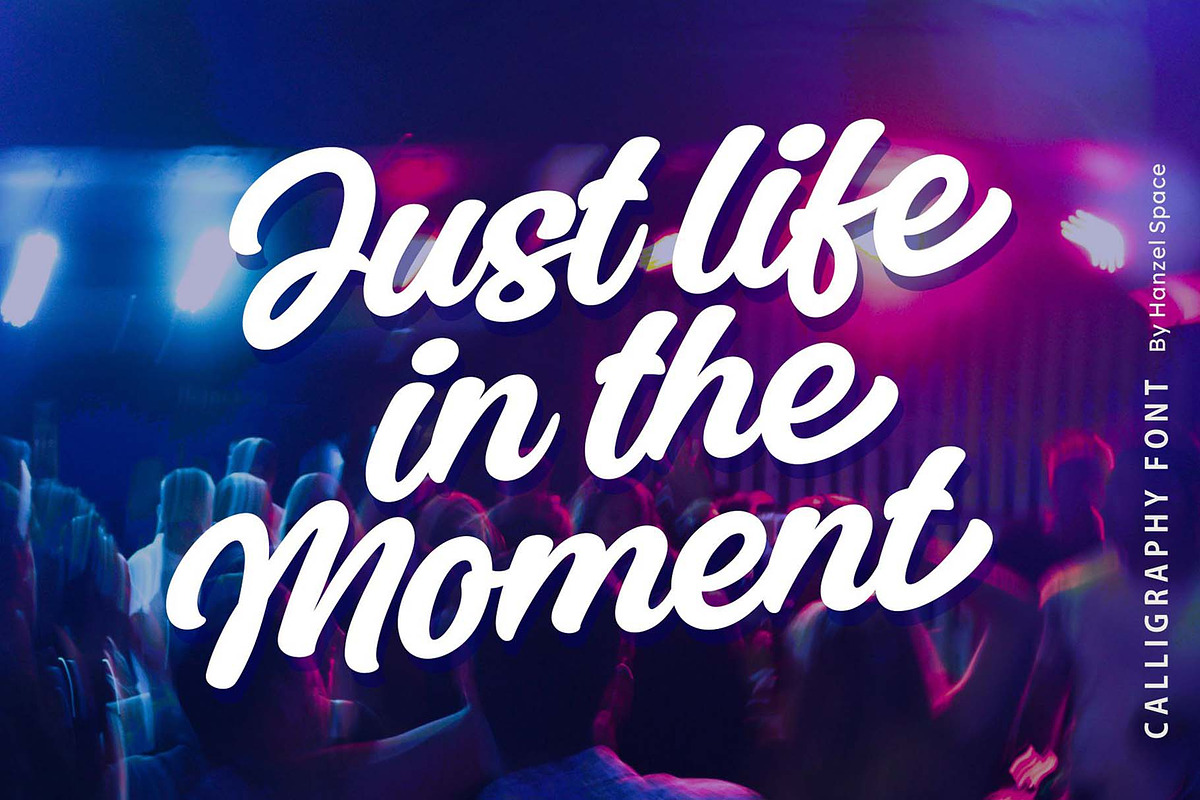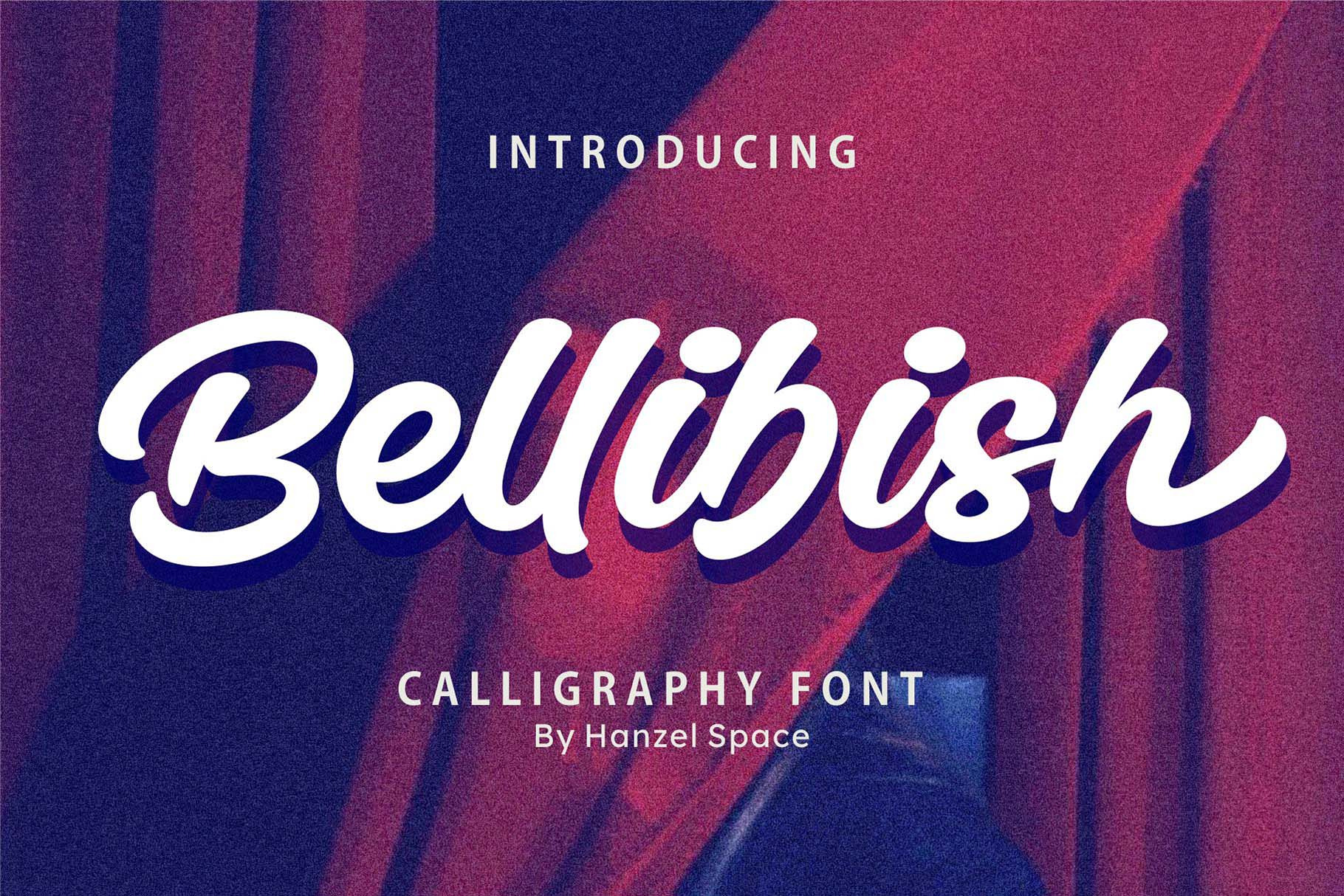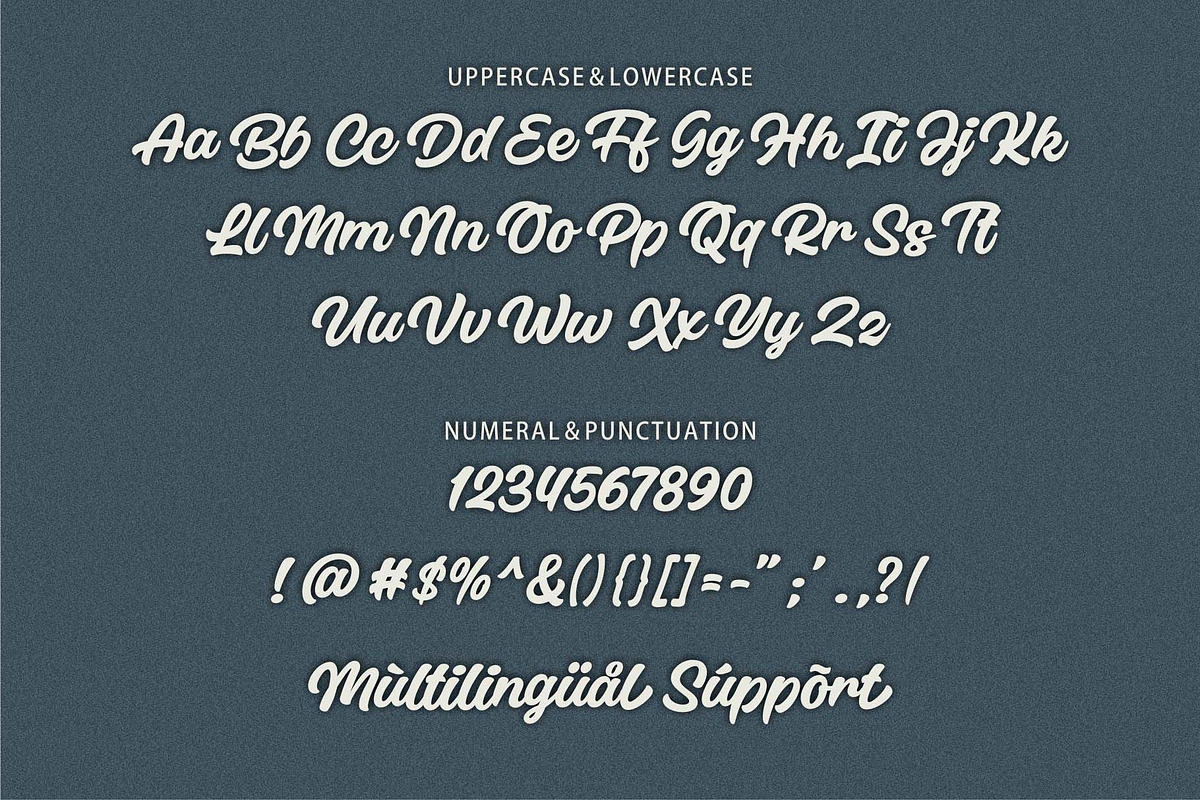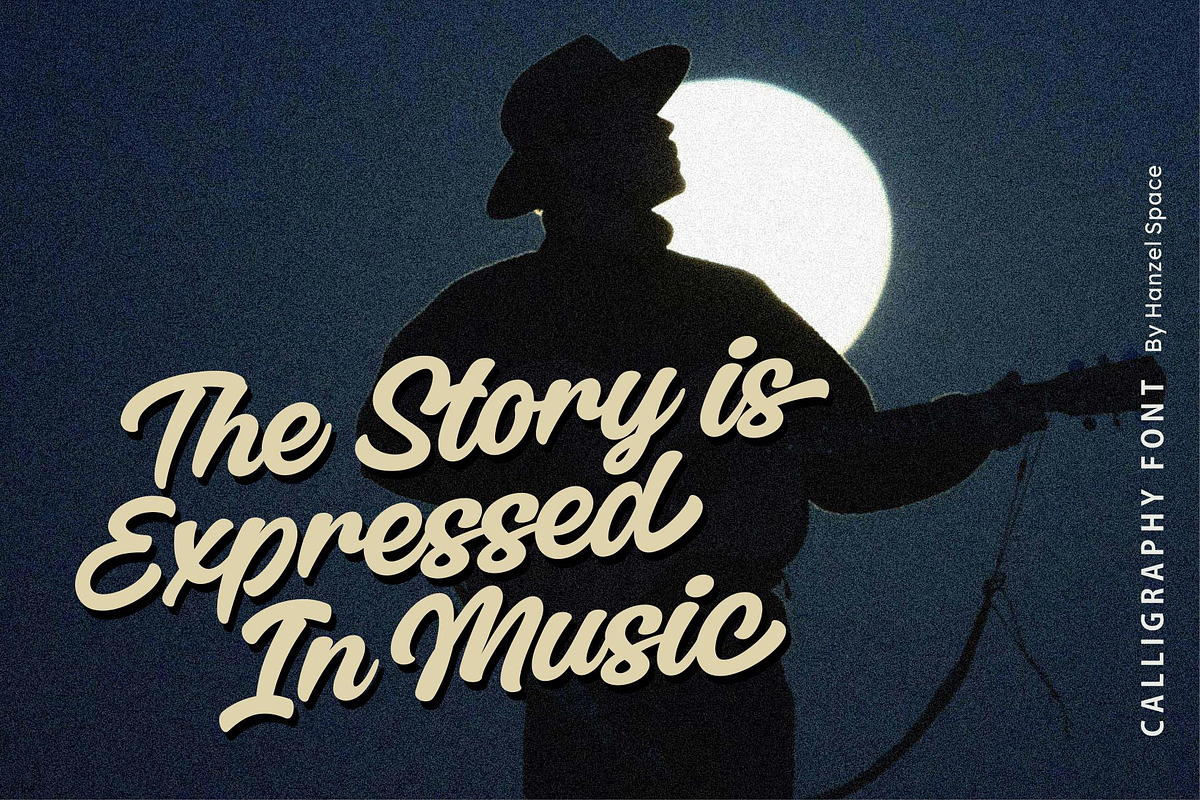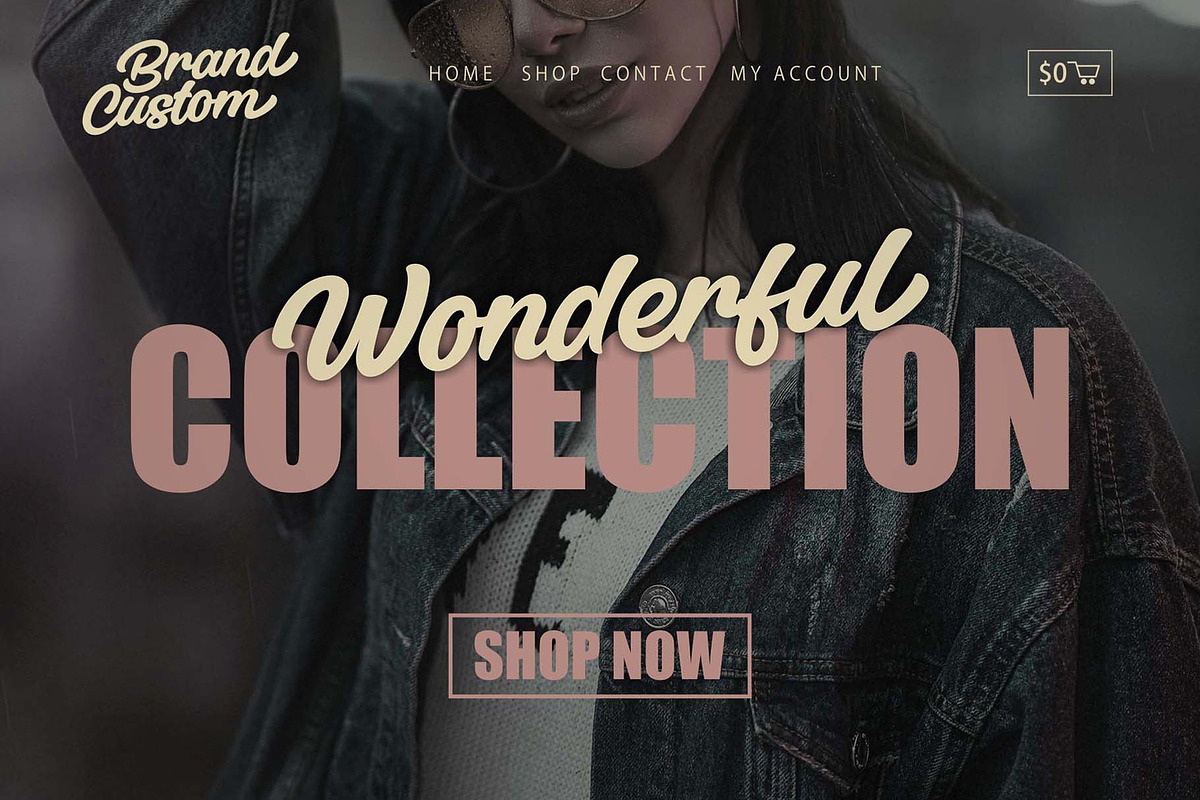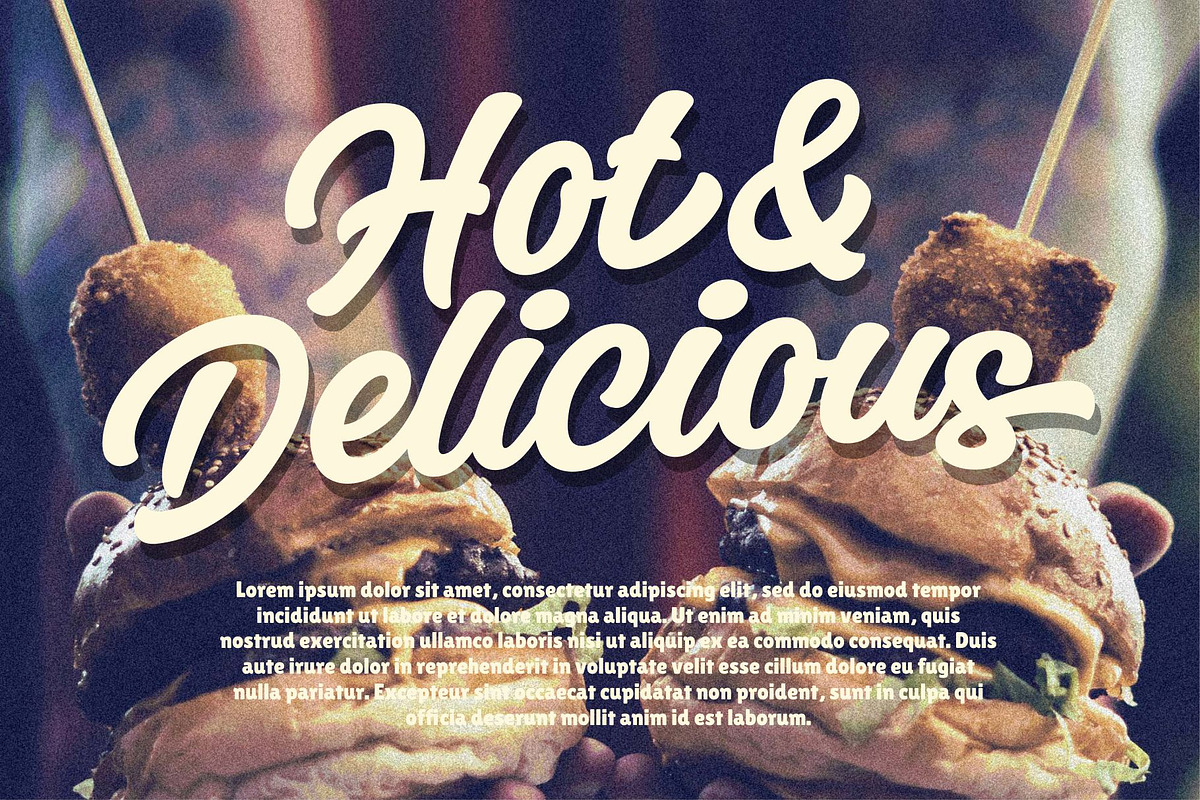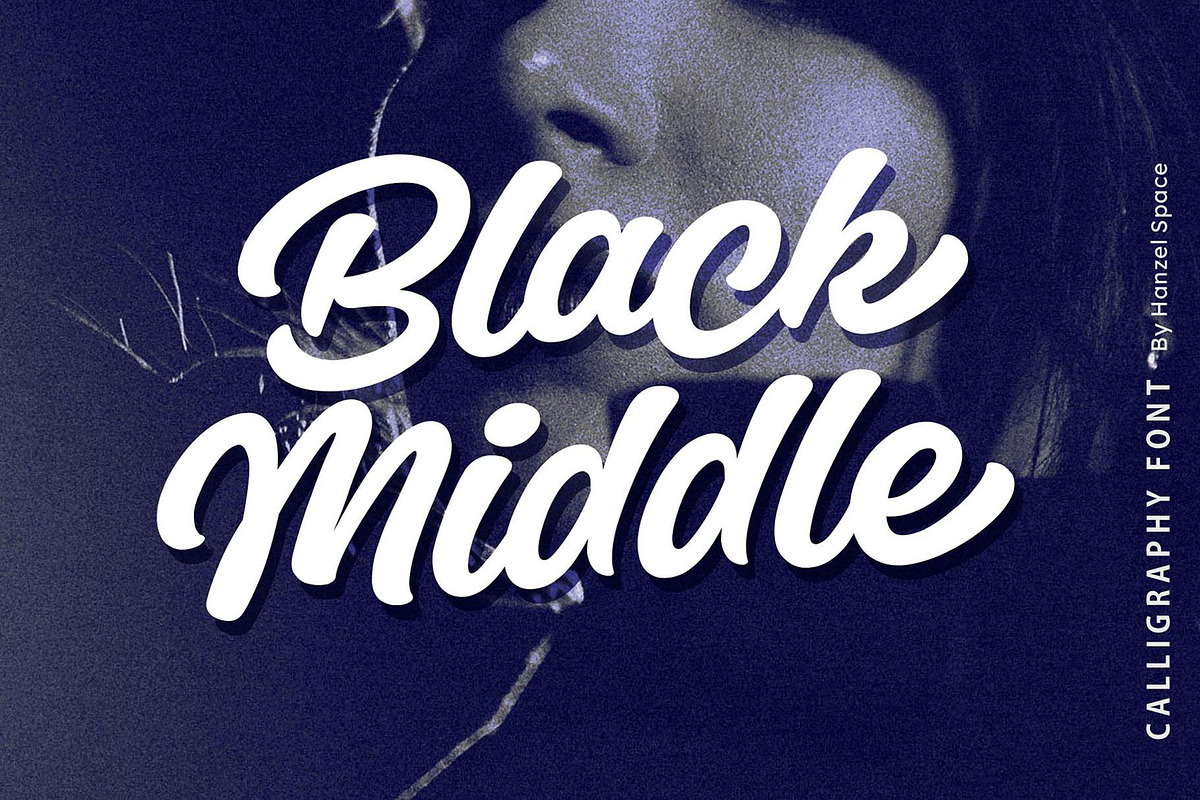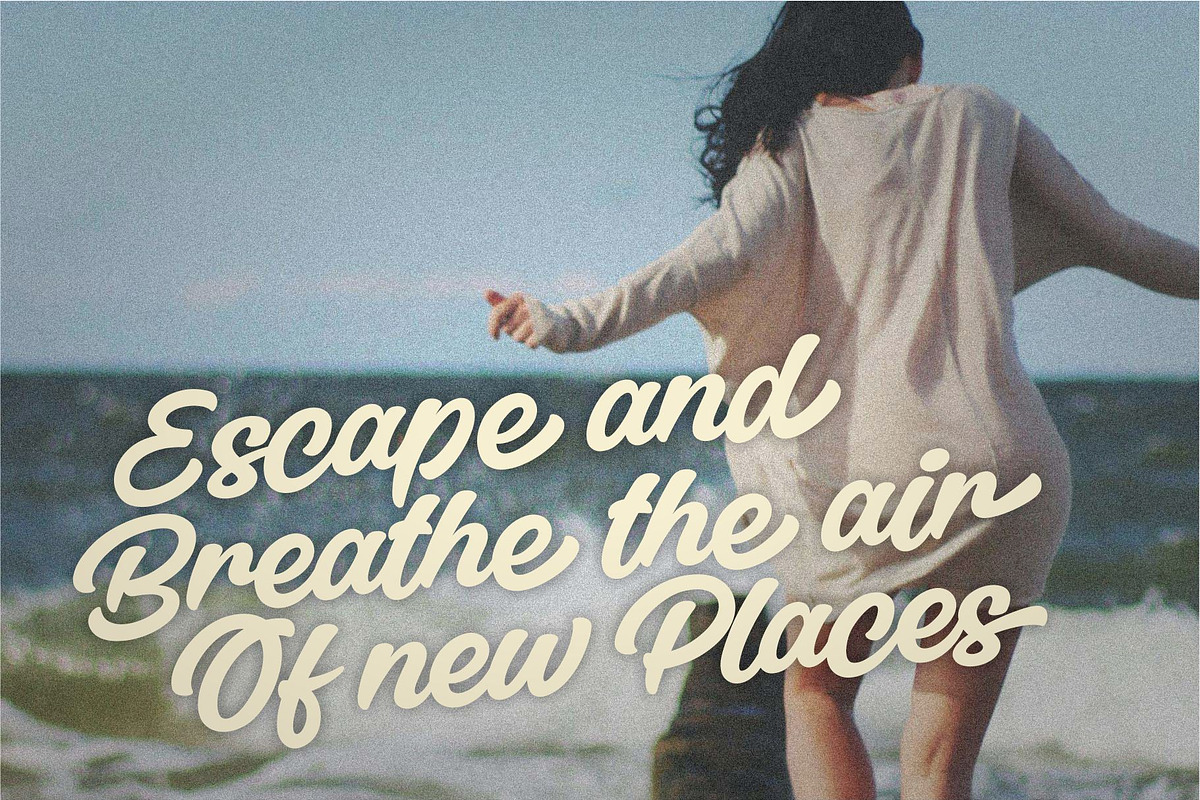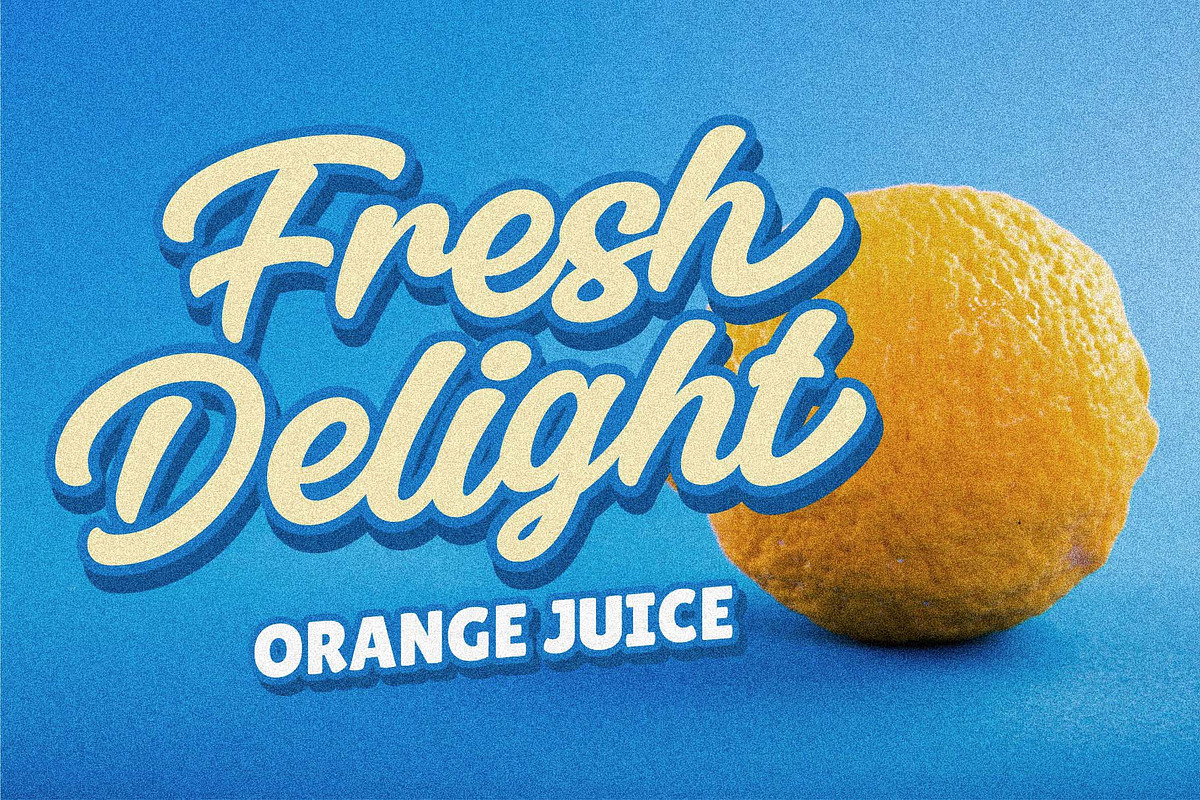
Bellibish | Calligraphy Font
Bellibish | Calligraphy Font. This font was created to help you designing logotype or lettering style logo for your Brand or your clients, and you also can use it for designing all of the graphic stuff such as badge, sign, packaging, headline, title, T-shirt/apparel,bPoster, etc.
Bellibish was designed for personal characters such as strong, confidence, dynamic, readable, Energic, dynamic, etc.
it has an extensive lingual support, covering European and Asian Latin scripts.
The font contains all characters you’ll ever need, including all punctuation and numbers.